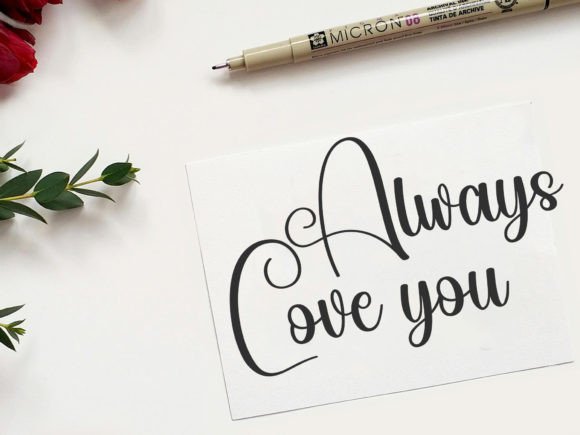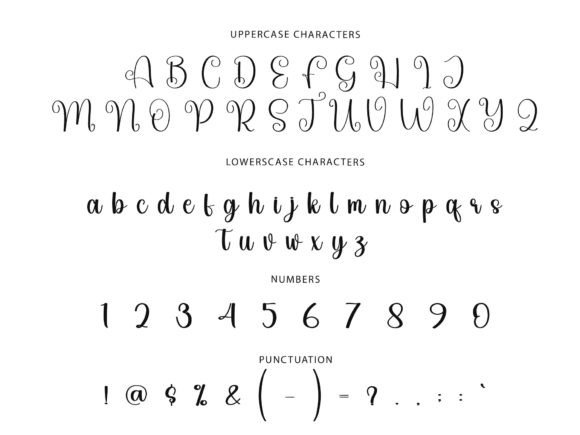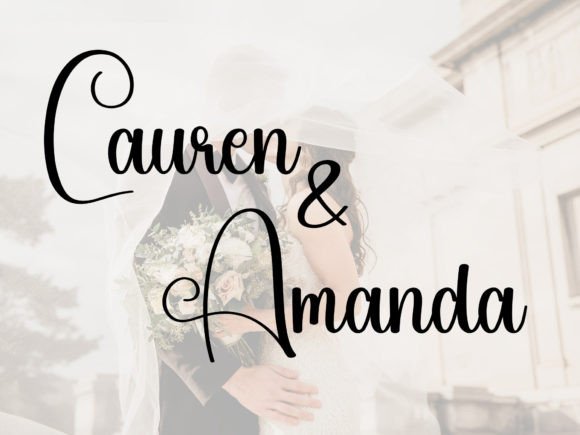
Discover the Elegance of Delvinas Font: A Handwritten Masterpiece
In the world of typography, few fonts manage to strike a balance between classic elegance and modern freshness. Delvinas Font, however, achieves this feat with remarkable ease. This outstanding handwritten font is a masterpiece of contemporary design, blending traditional calligraphic influences with a modern aesthetic that feels both sophisticated and approachable.
The Essence of Delvinas Latin: A Perfect Blend of Style and Versatility
Delvinas Latin, the core of the Delvinas Font family, simplifies elegance into a truly unique and versatile typeface. Its classy calligraphic roots are evident in its fluid strokes and elegant letterforms, yet it also possesses a certain je ne sais quoi that makes it feel contemporary and fresh. This versatility is perhaps the most compelling aspect of Delvinas Latin, as it seamlessly adapts to a wide range of creative projects.
Endless Possibilities for Crafty Ideas
Whether you’re a designer looking for the perfect font for a client’s letterhead, a crafty individual seeking a stylish title for your handmade cards, or a stationery enthusiast aiming to elevate your brand’s visual identity, Delvinas Latin is an exceptional choice. Its adaptability makes it suitable for various applications, including:
- Letterheads: Add a touch of sophistication to your business correspondence with Delvinas Latin’s elegant and professional aesthetic.
- Titles: Make a statement with eye-catching titles that exude a sense of luxury and refinement.
- Stationery: Elevate your stationery game with Delvinas Latin’s beautiful and versatile letterforms, perfect for creating a cohesive brand image.
What Makes Delvinas Font Stand Out?
In a sea of fonts, Delvinas Latin stands out for several reasons:
- Unique Calligraphic Influence: Delvinas Latin’s roots in traditional calligraphy are evident, yet it doesn’t feel stuffy or outdated. Instead, it brings a sense of warmth and personality to your designs.
- Contemporary Freshness: Despite its classic influences, Delvinas Latin feels remarkably modern and fresh, making it perfect for designers and crafters looking for a font that will make their work stand out.
- Versatility: Whether you’re working on a formal project or something more playful, Delvinas Latin adapts effortlessly, ensuring your designs always look polished and professional.
Tips for Using Delvinas Font Effectively
To get the most out of Delvinas Latin, consider the following tips:
- Pair it with Neutrals: Delvinas Latin’s strong personality works best when paired with neutral fonts that complement its elegance without overpowering it.
- Experiment with Sizes: Don’t be afraid to play with different font sizes to create visual hierarchy and emphasize certain parts of your design.
- Color Matters: Choose colors that complement the elegance of Delvinas Latin. Earth tones, rich blacks, and metallics can enhance its luxurious feel.
Delvinas Font, with its core Delvinas Latin typeface, offers an unbeatable combination of elegance, versatility, and modern freshness. Whether you’re a professional designer or a crafty individual looking to elevate your projects, Delvinas Latin is a font that promises to exceed your expectations. Its ability to blend traditional calligraphic influences with a contemporary aesthetic makes it a valuable addition to any design toolkit. So, if you’re looking for a font that can add a touch of class and sophistication to your work, look no further than Delvinas Font.
Embark on your creative journey with Delvinas Latin and discover how this remarkable font can transform your designs into stunning works of art.